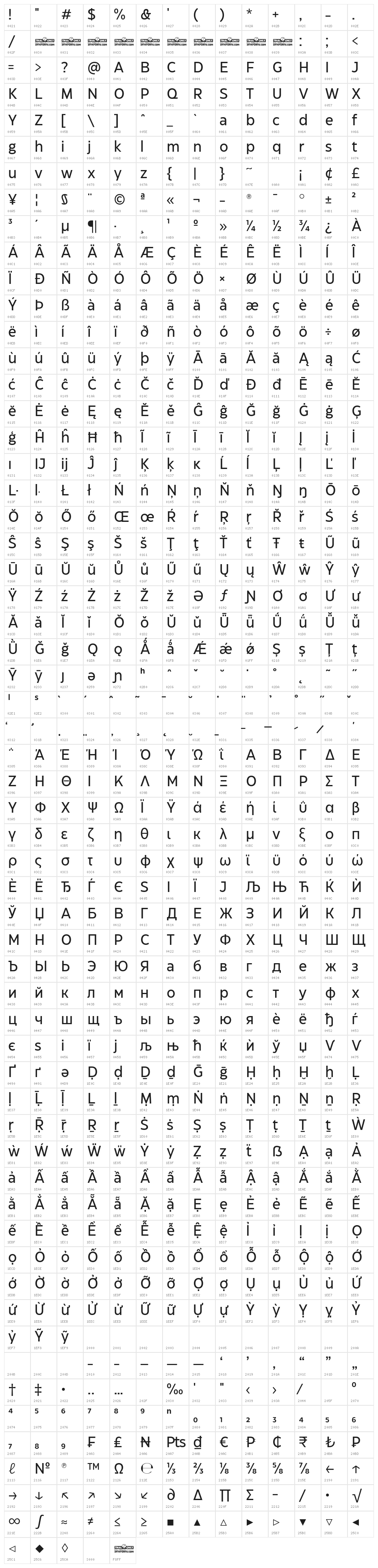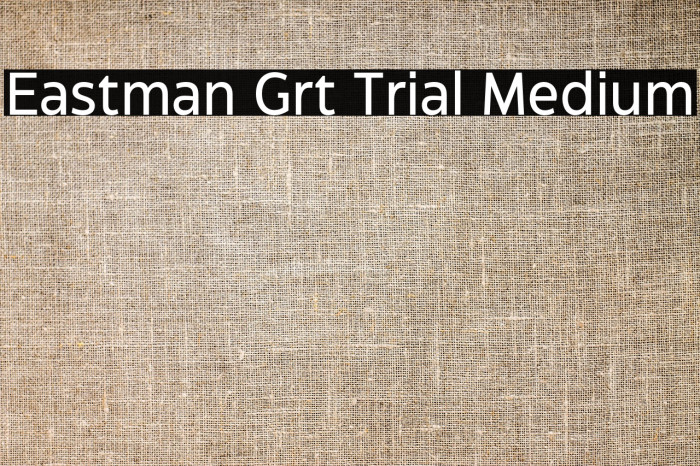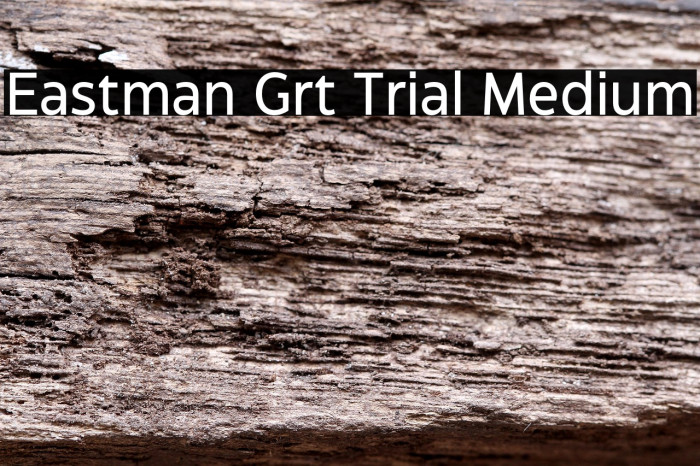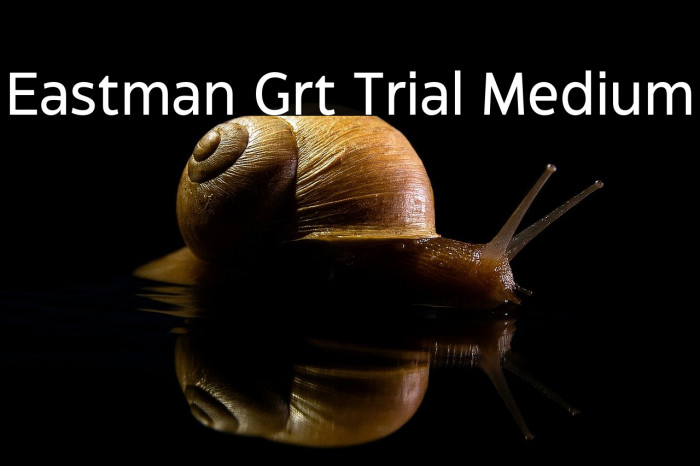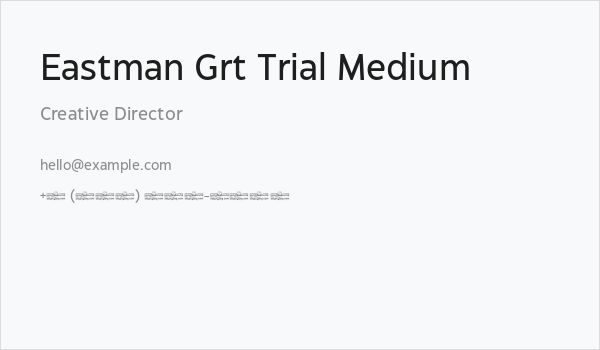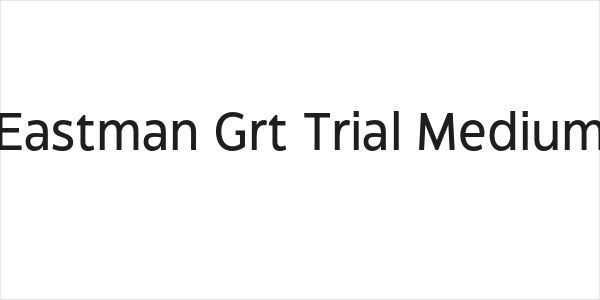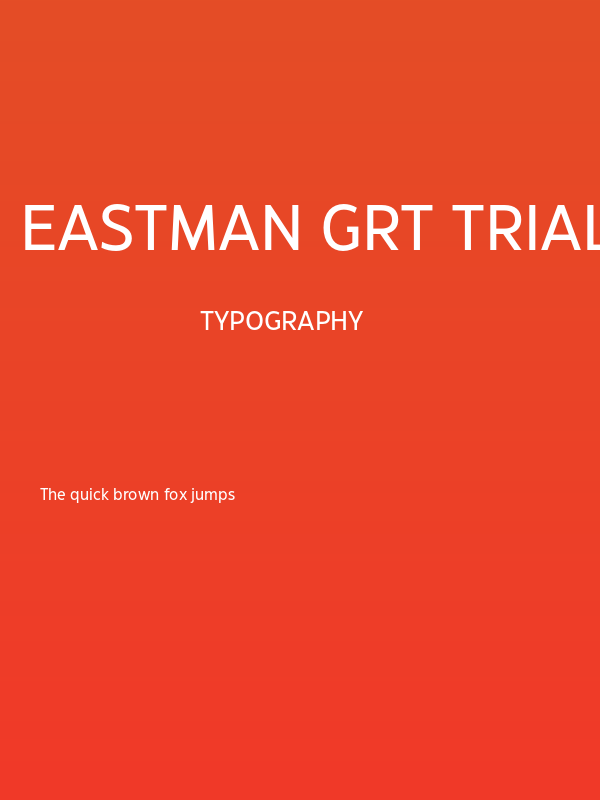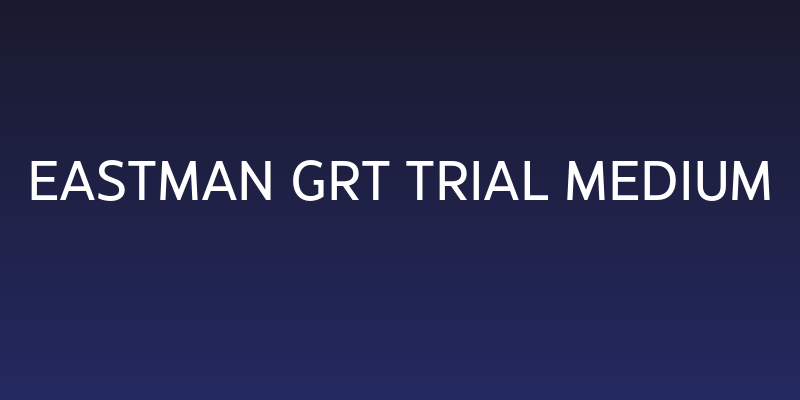
Eastman Grt Trial Medium Font
Eastman Grt Trial Medium Description
This font features a clean and modern sans-serif design, characterized by its geometric shapes and uniform stroke widths. The uppercase letters are bold and assertive, while the lowercase letters maintain a consistent and harmonious appearance. The numerals are clear and easily distinguishable, making them suitable for a variety of applications. The special characters are well-integrated, ensuring versatility in usage. Overall, this typeface exudes a contemporary and professional aesthetic, ideal for digital and print media.